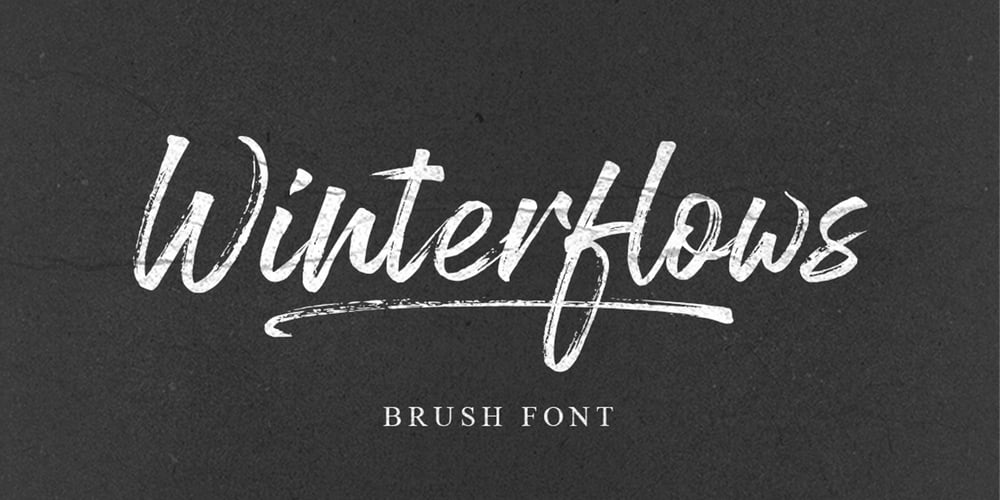
Winterflows
Winterflows font
Winterflows Font Family was designed by Fajar Gunawan and published by Fargun Studio. Winterflows contains 3 styles and family package options. Winterflows is a handwritten font with quick dry strokes and a signature style. It is perfect for branding projects, homeware designs, product packaging or simply as a stylish text overlay to any background image or posters.